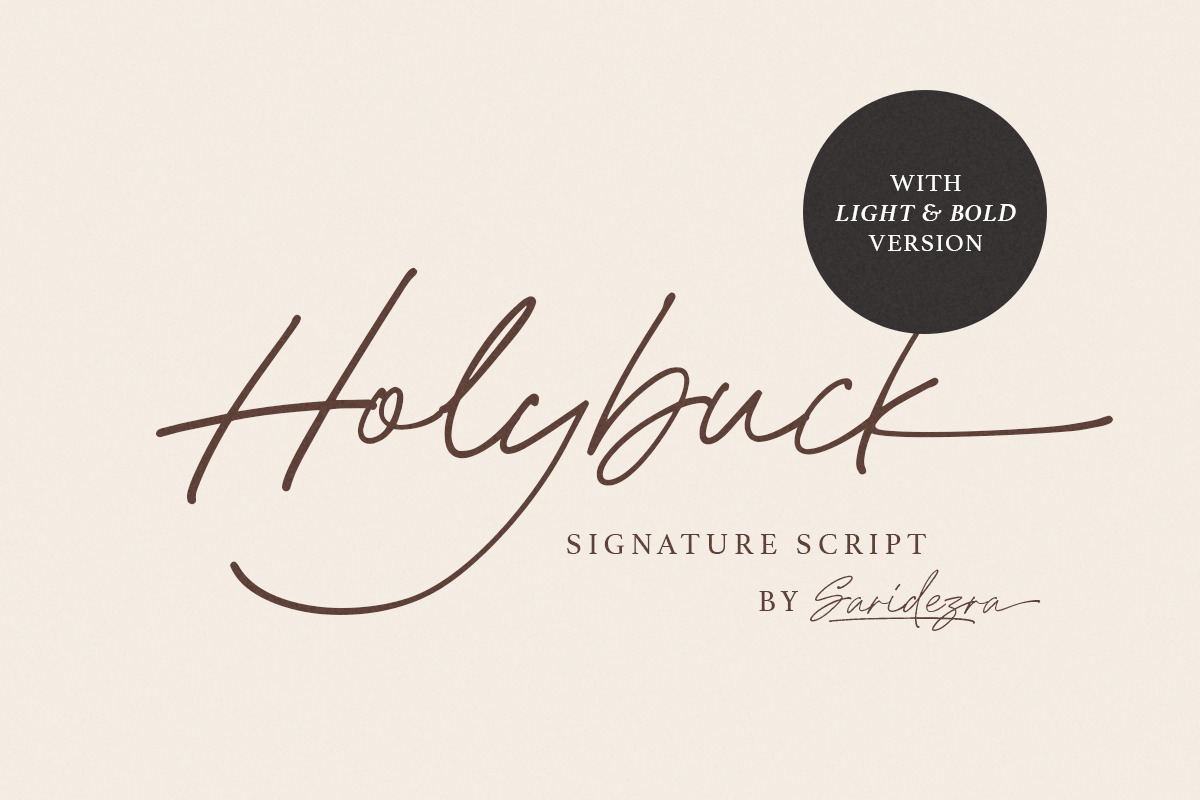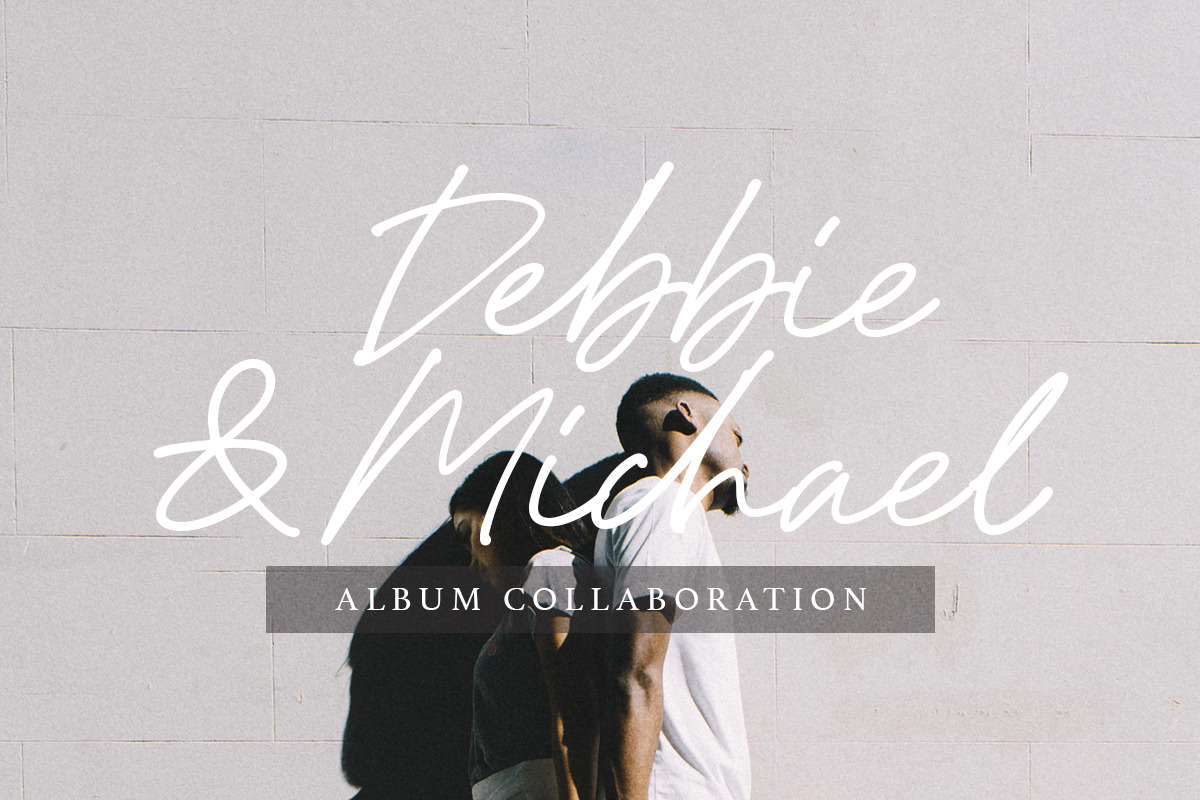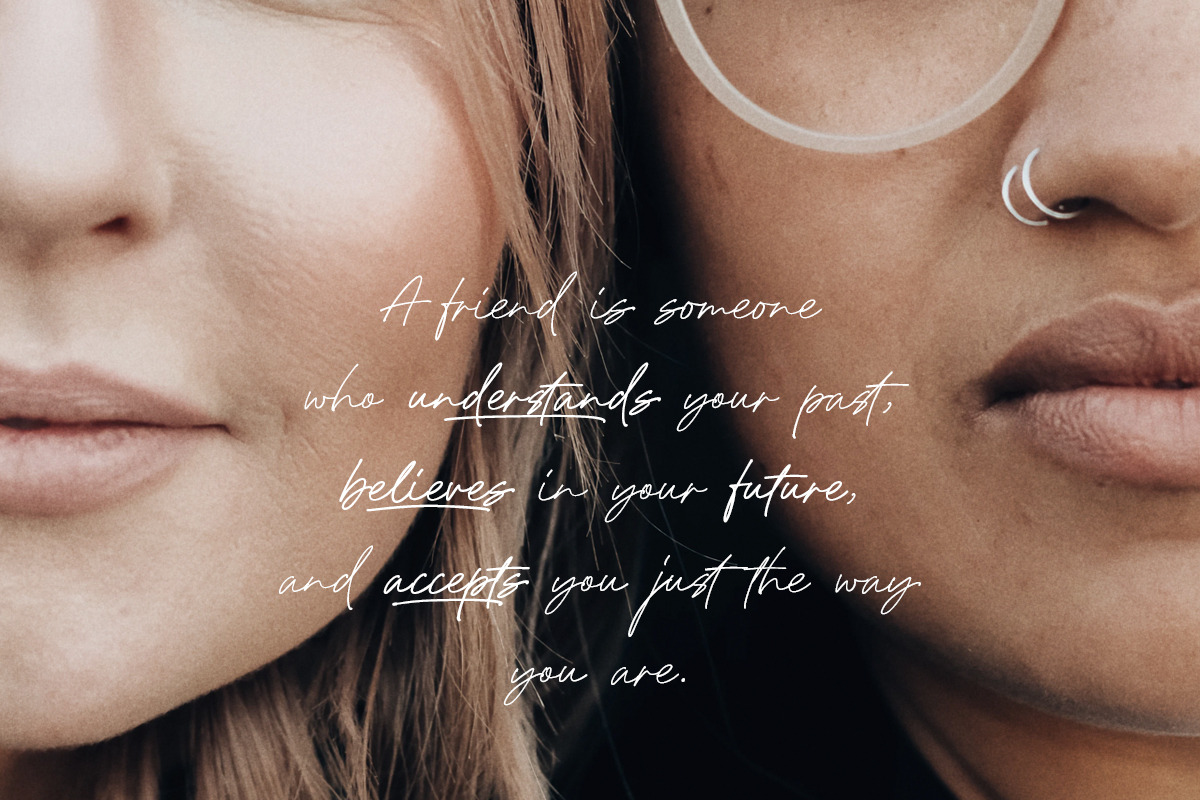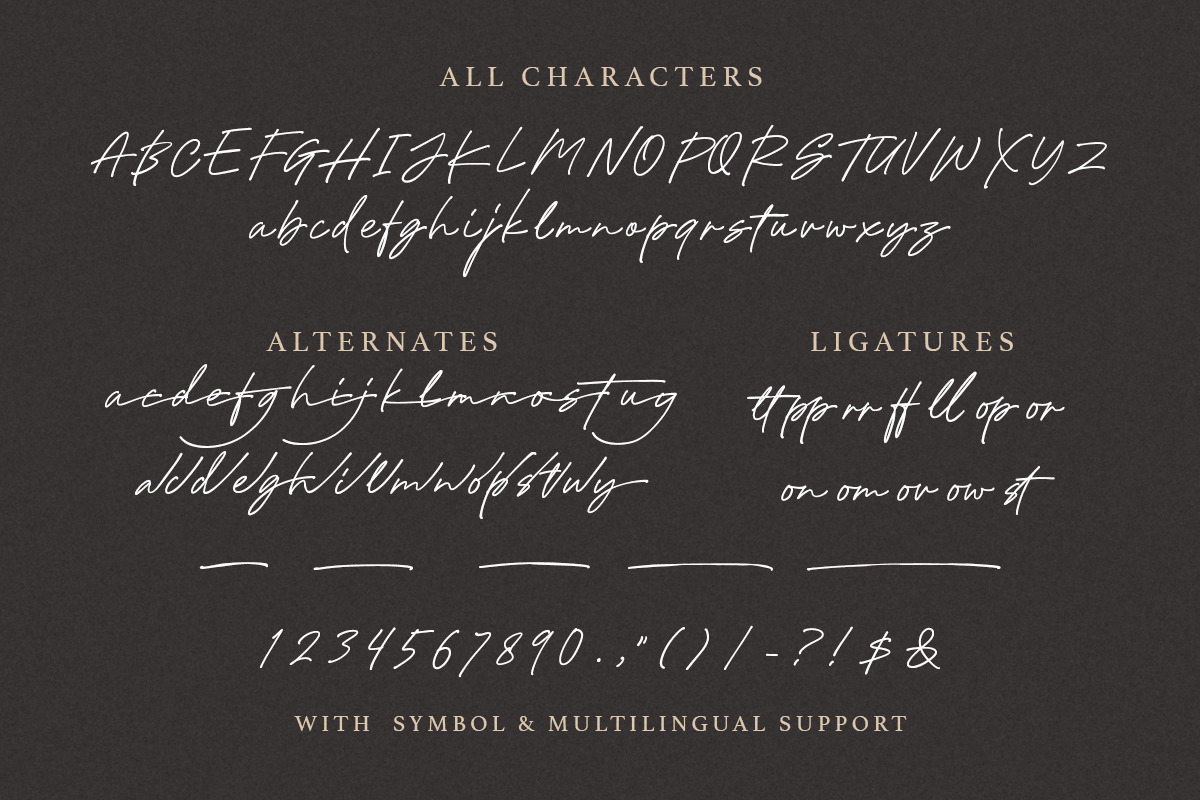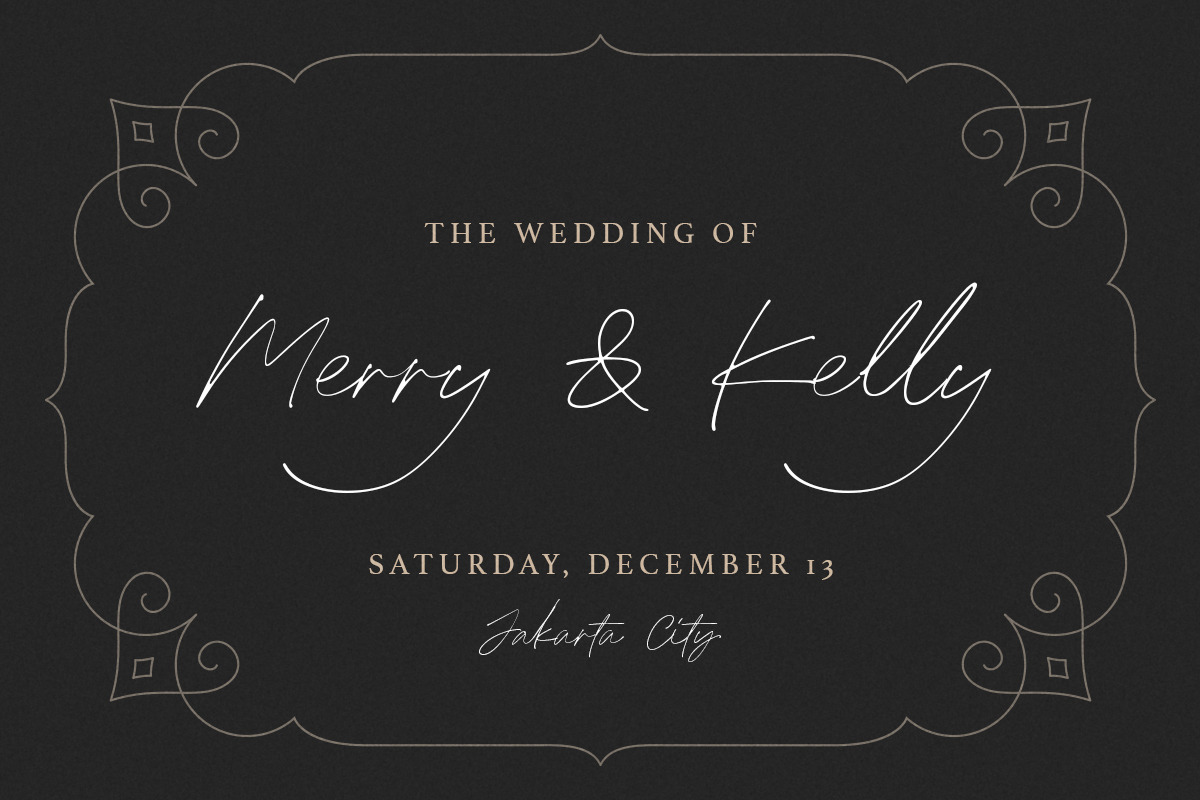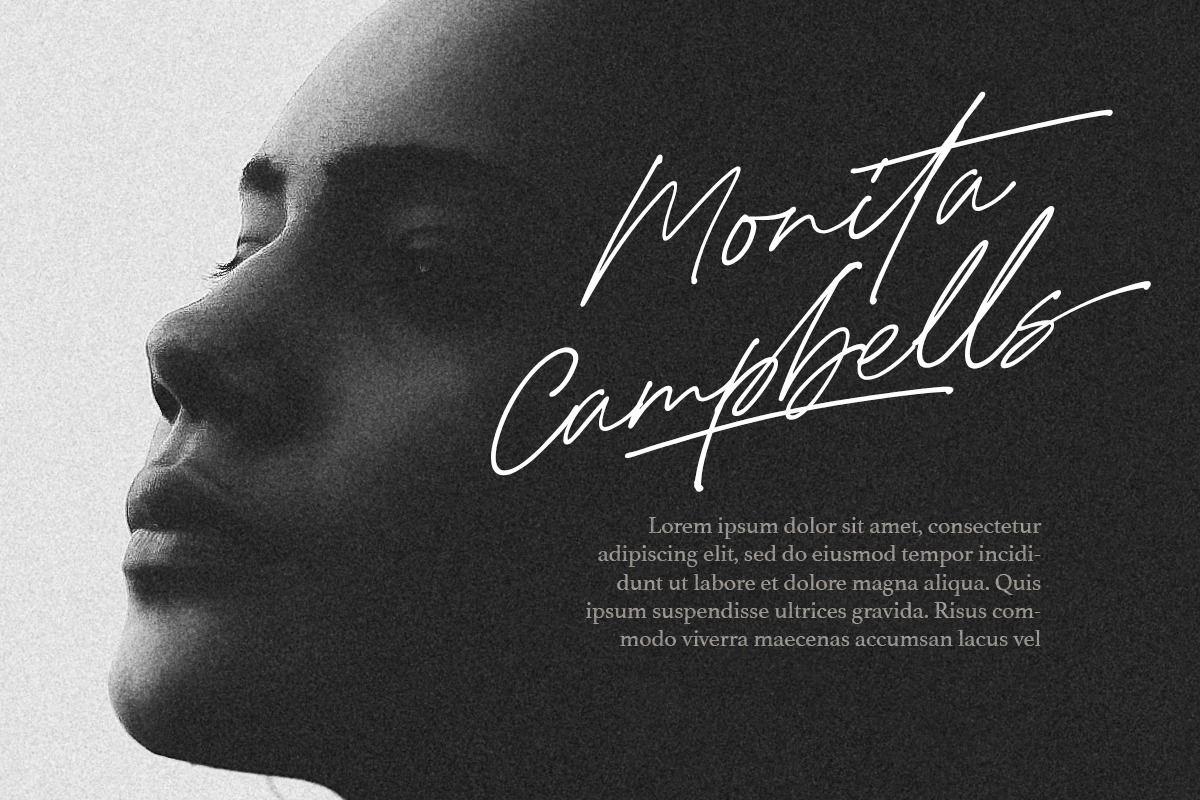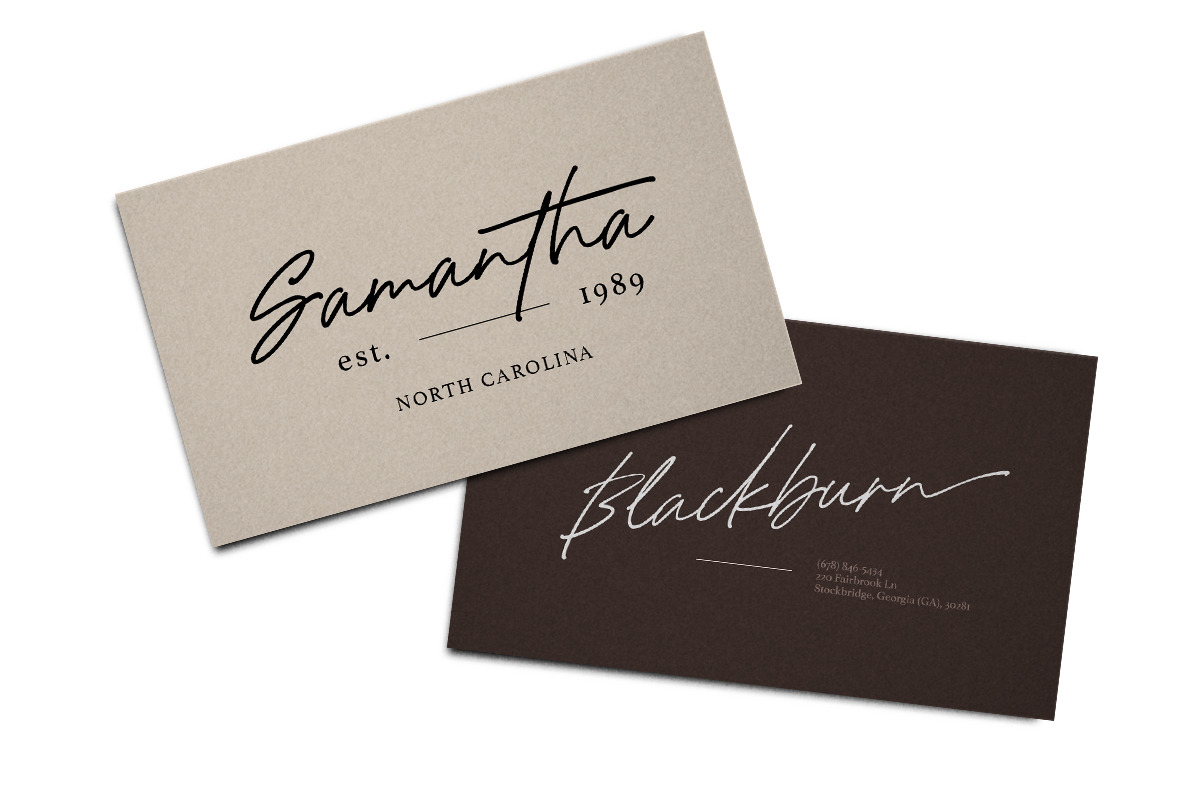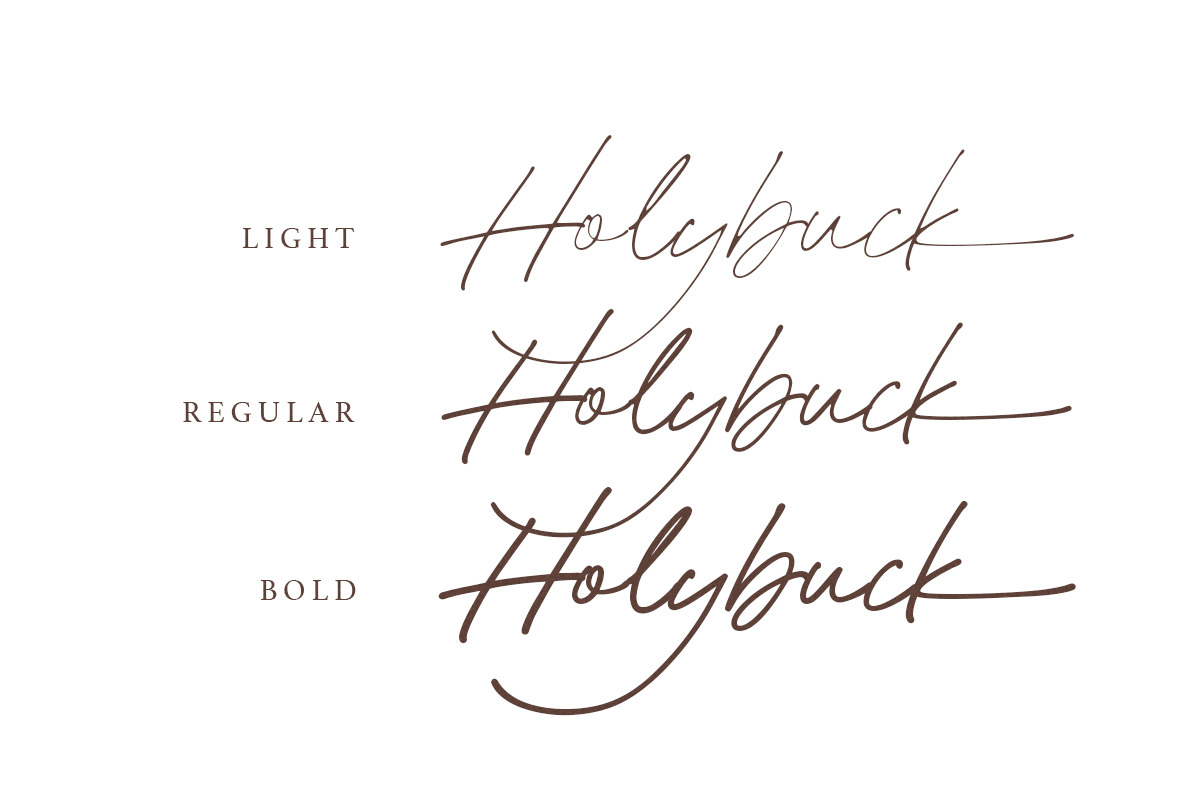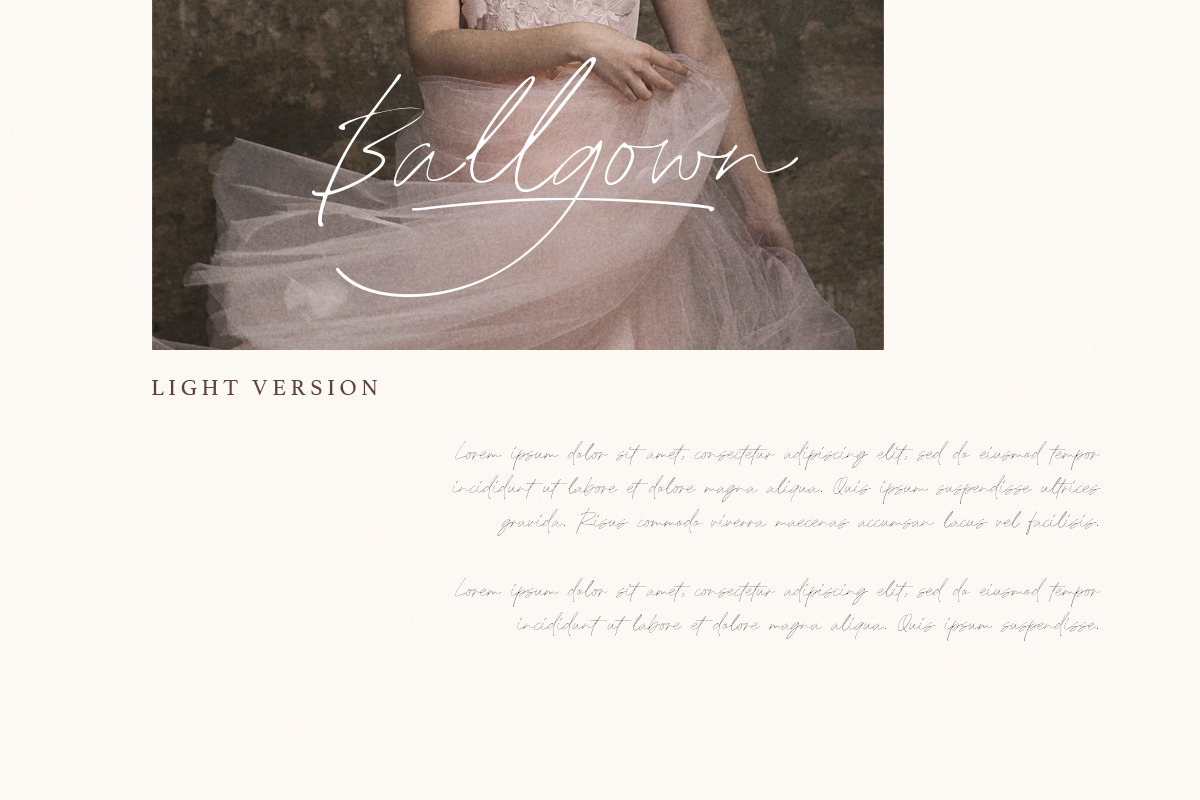
Holybuck - Signature Font Family
Introducing, Holybuck, classic signature family!
Holybuck is signature script with three style that contain stylistic alternate, swash and underline to create your own costumized signature or logo design. This font is also support multi language. Available in OTF and TTF. Also Support PUA. It's available in three weigh style!
To add the line in under the text, type underscore + number (from 1 to 5). Or copy Some_5thing in preview bellow..